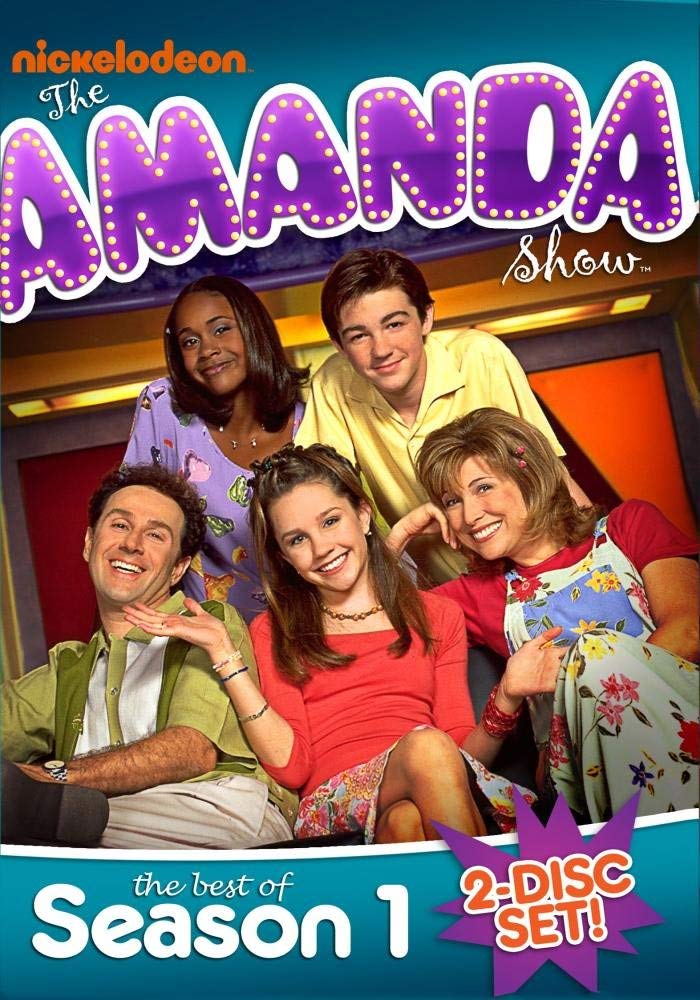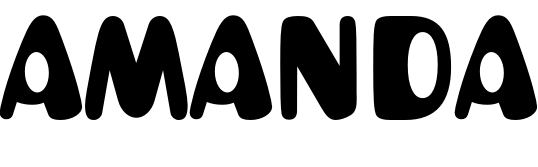
The Amanda Show Font
ComedyThe Amanda Show is a sketch comedy television series that aired on Nickelodeon from 1999 to 2002. It starred Amanda Bynes and featured a variety of comedic skits and recurring characters.
The movie's cover above displays the title of Amanda Show in two different fonts. The curly informal looking font is Gigi, designed by California artist Jill Bell. The "Amanda" part is likely based on ITC Jellybaby designed by Timothy Donaldson and free for personal use.